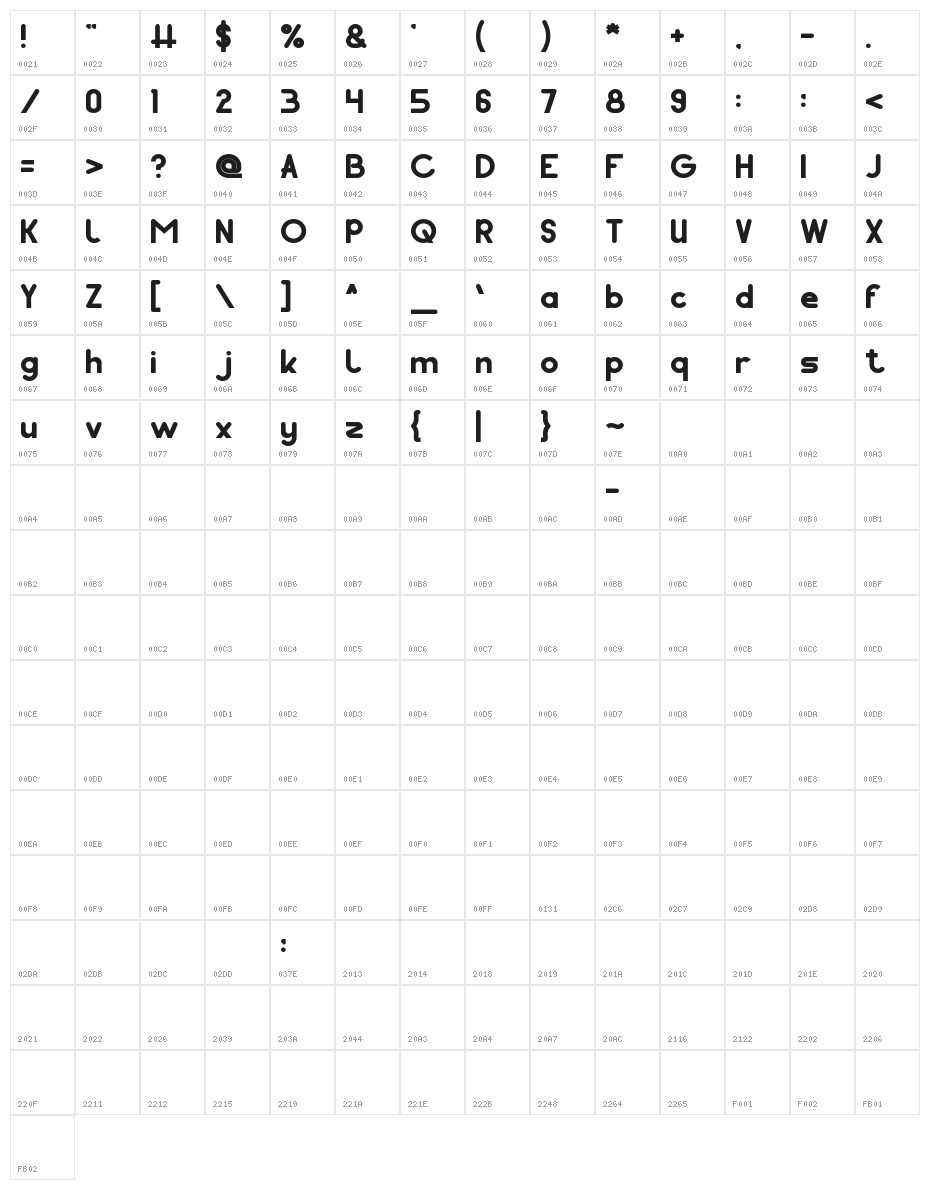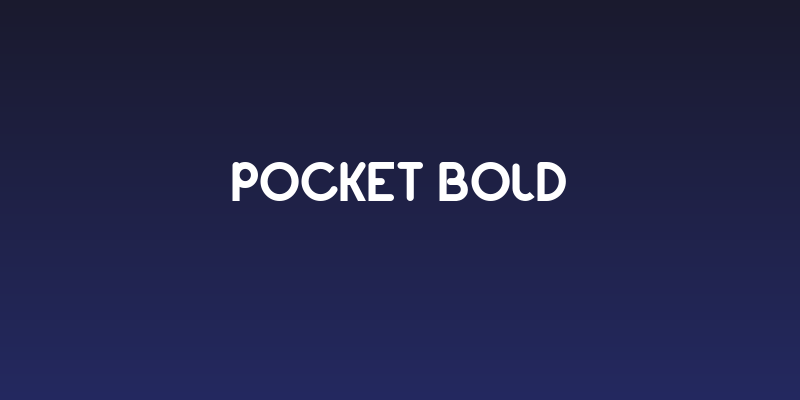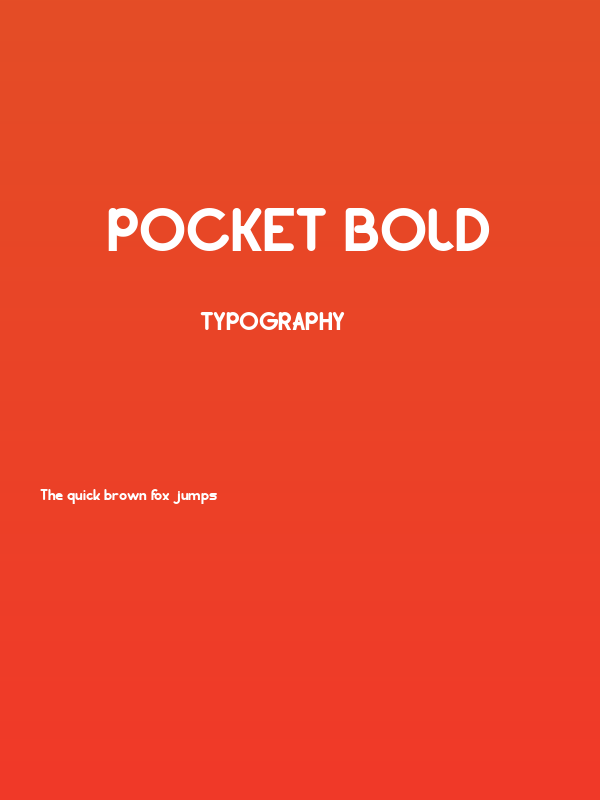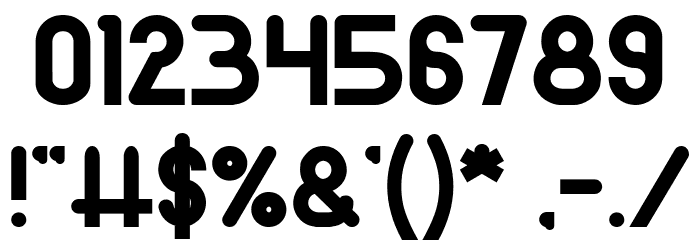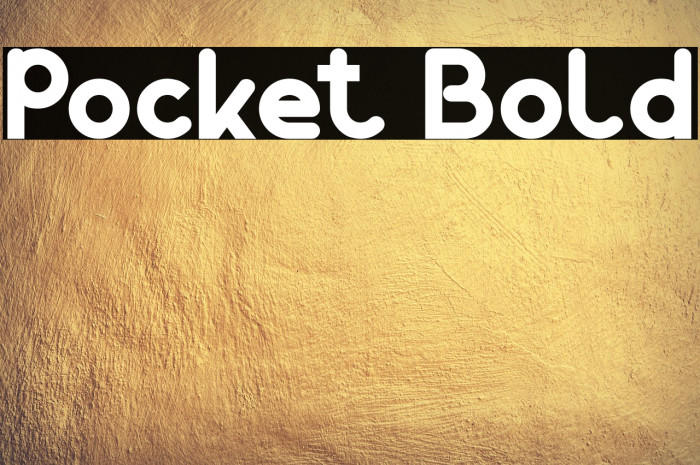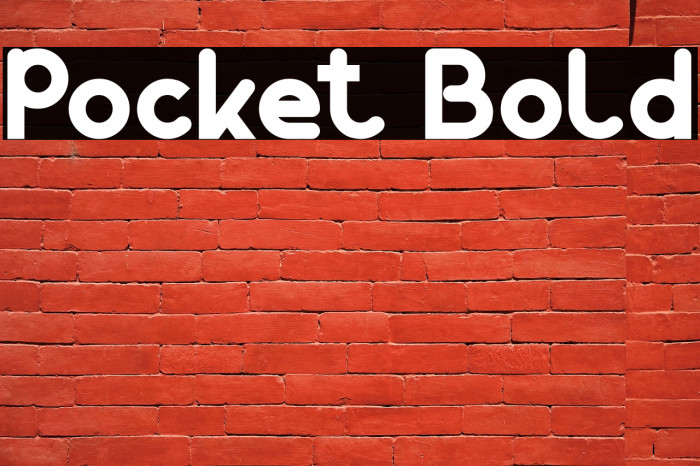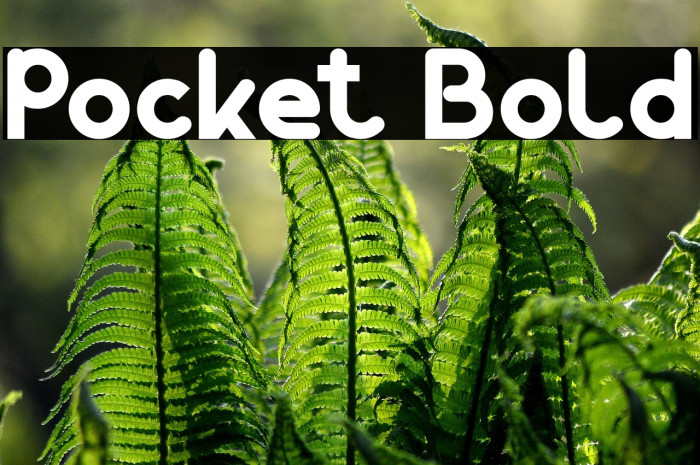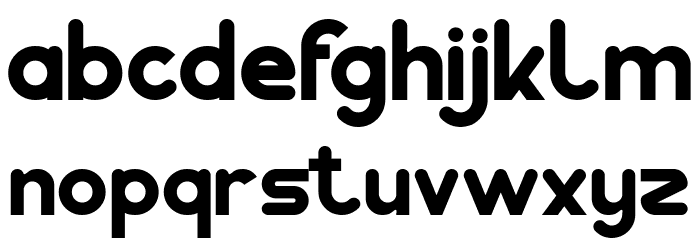
Pocket Bold Font
Pocket Bold Description
This font features a bold and rounded style, characterized by its thick strokes and smooth curves. The uppercase letters are uniform in height, with a modern geometric influence that gives them a clean and approachable appearance. The lowercase letters maintain a consistent roundness, enhancing readability while adding a playful touch. Numbers are equally bold and rounded, ensuring clarity and visual balance. Special characters are designed to match the overall aesthetic, making them cohesive with the rest of the typeface. This font is versatile, suitable for both digital and print media, where a friendly yet professional look is desired.